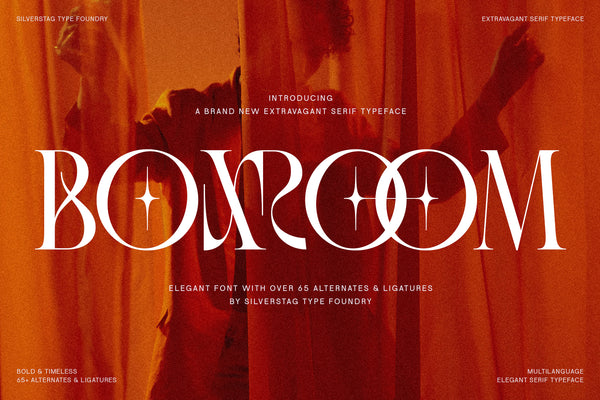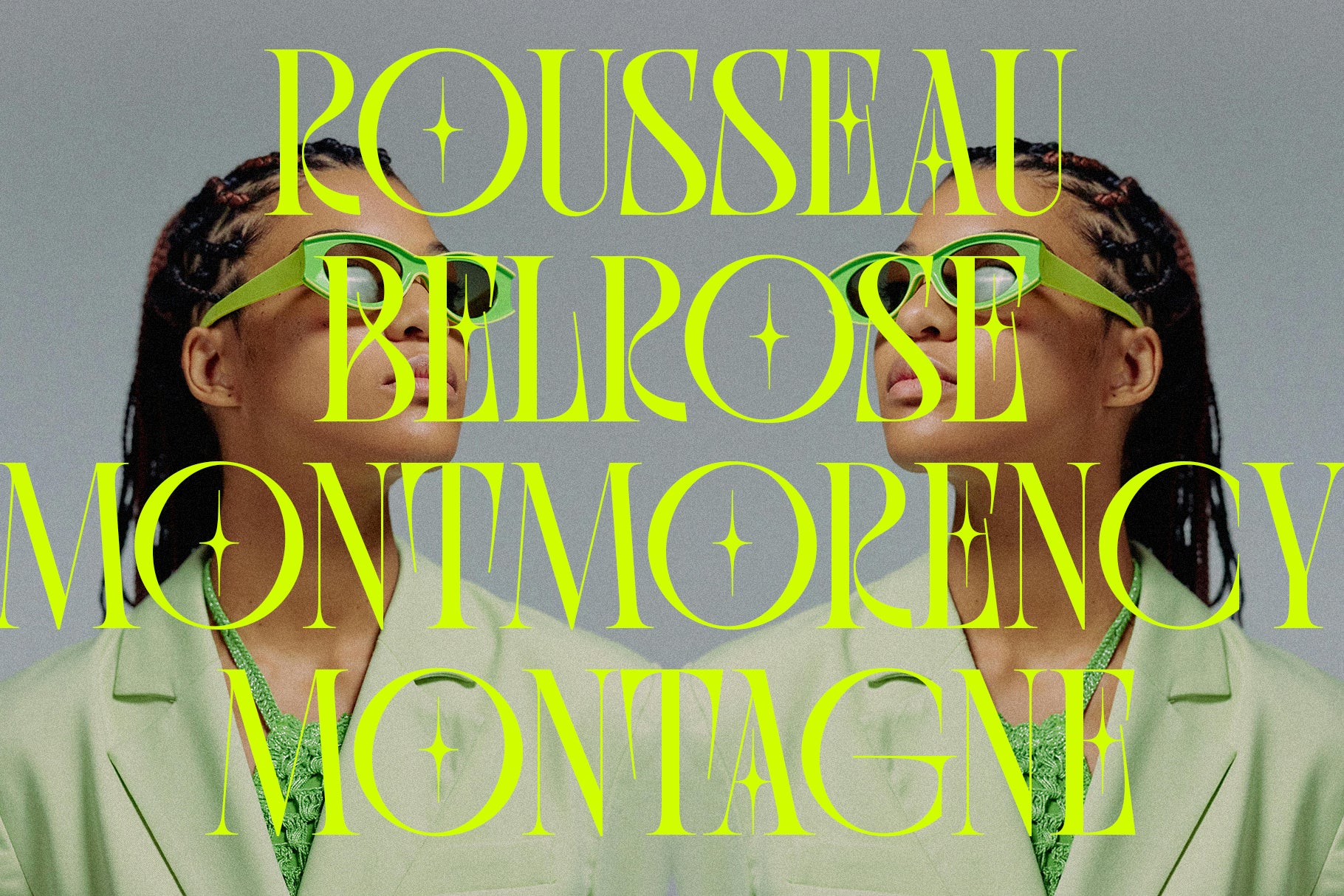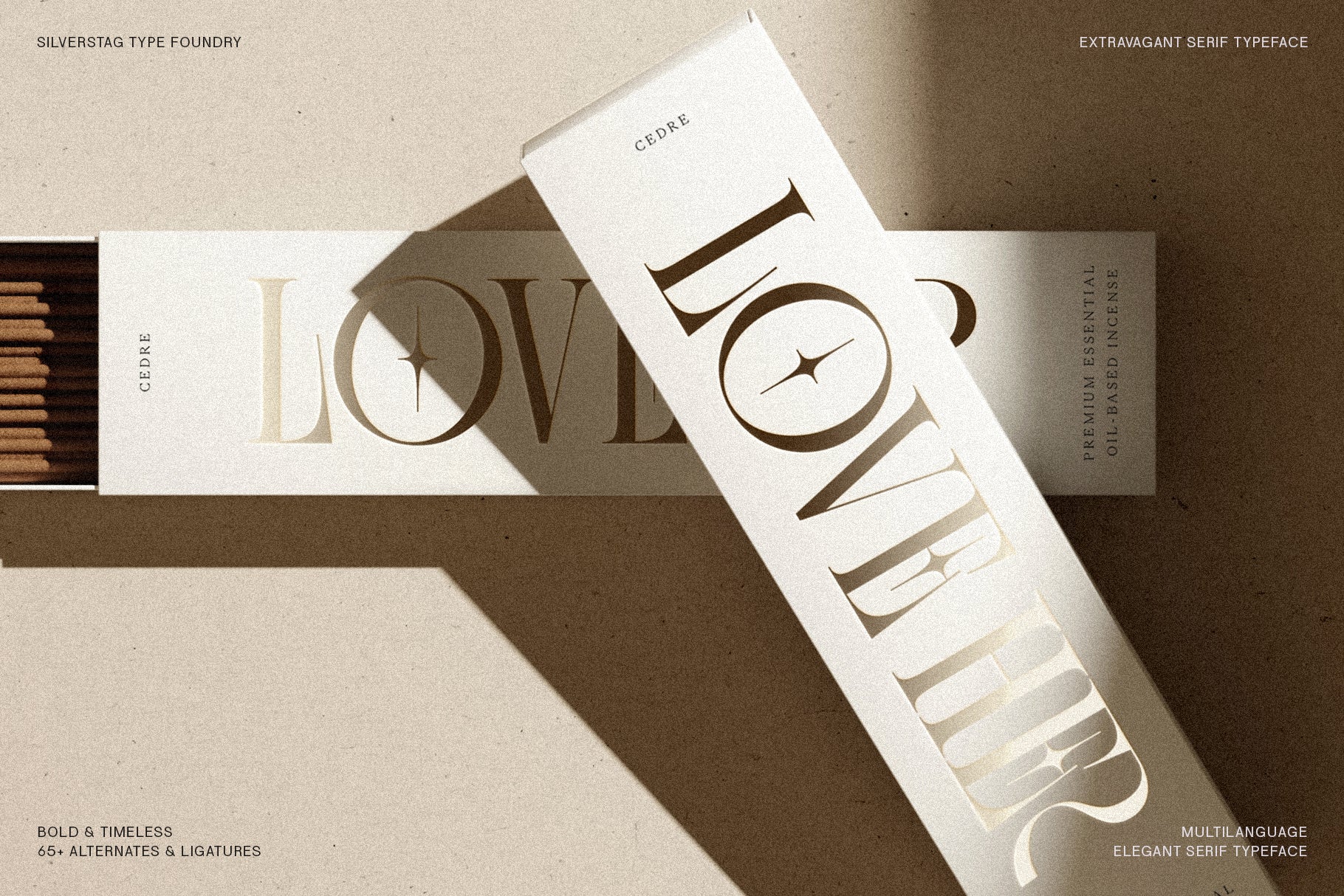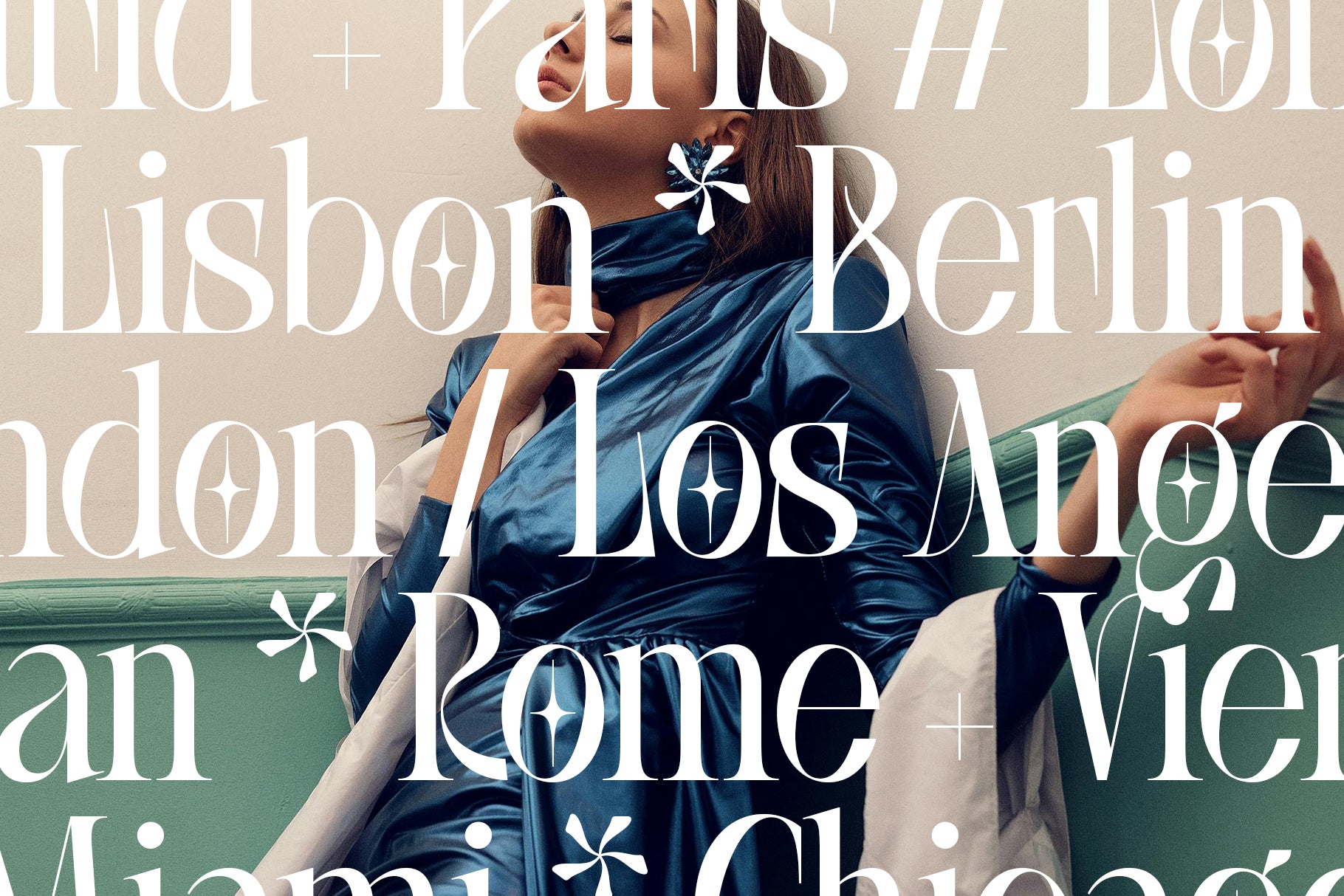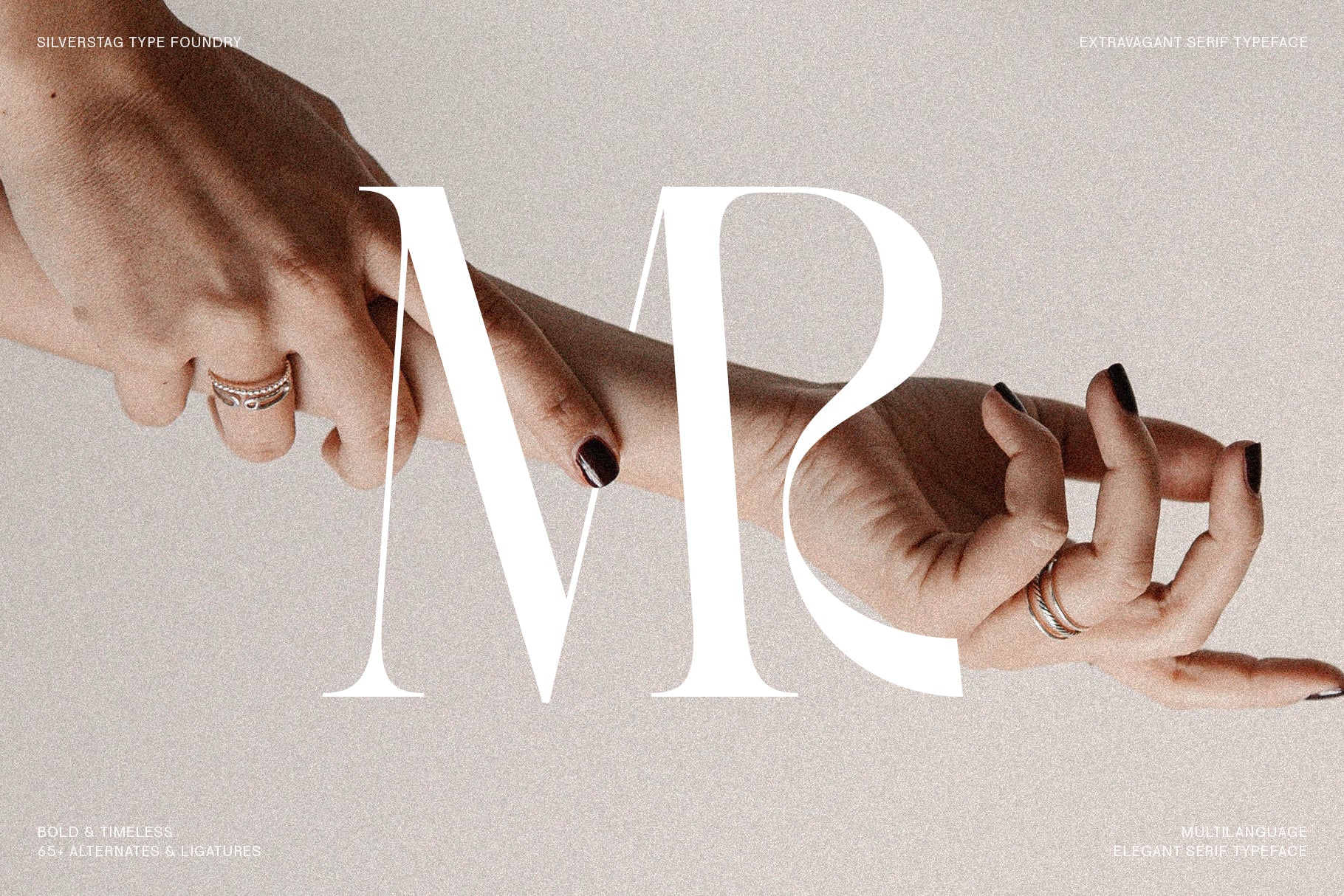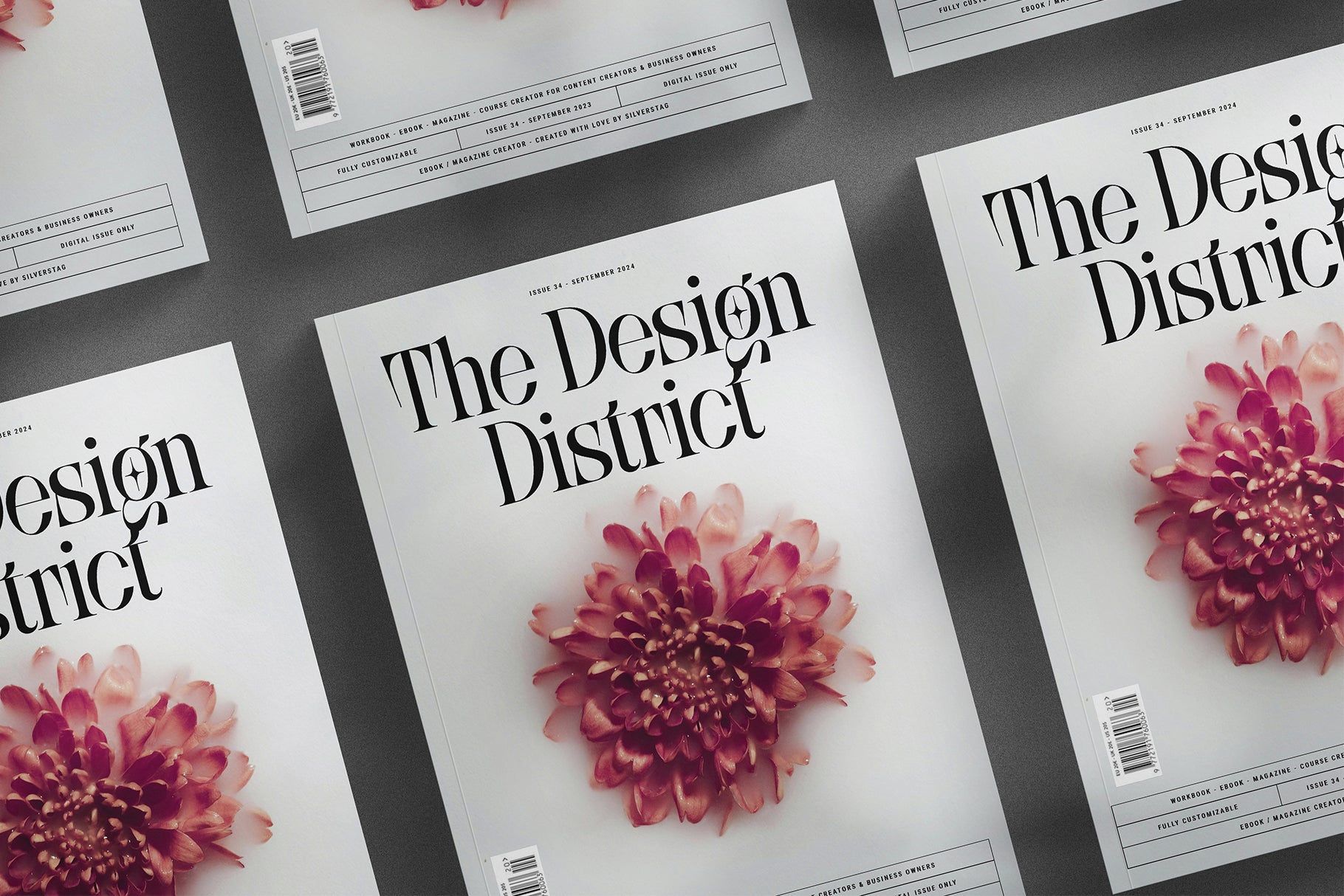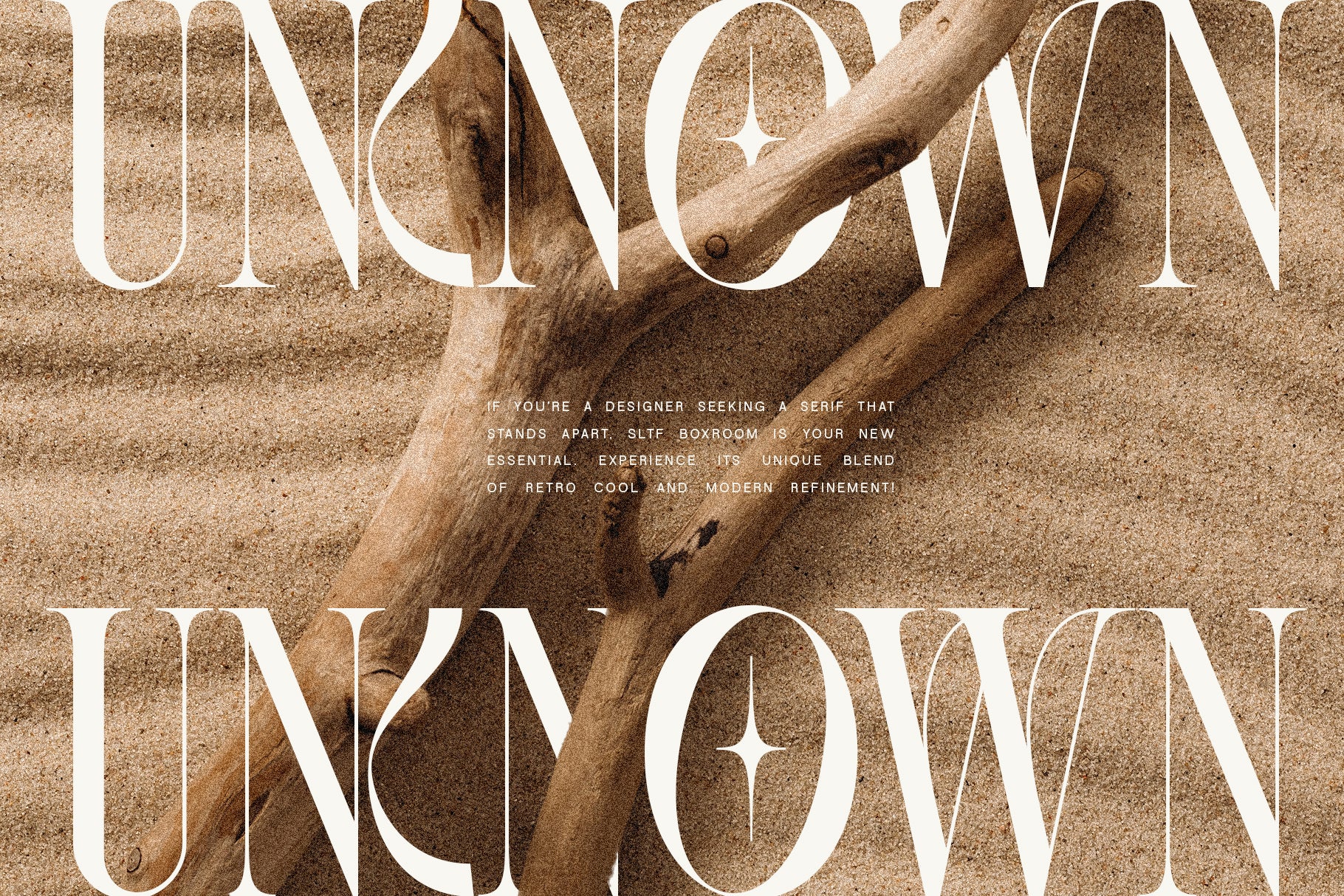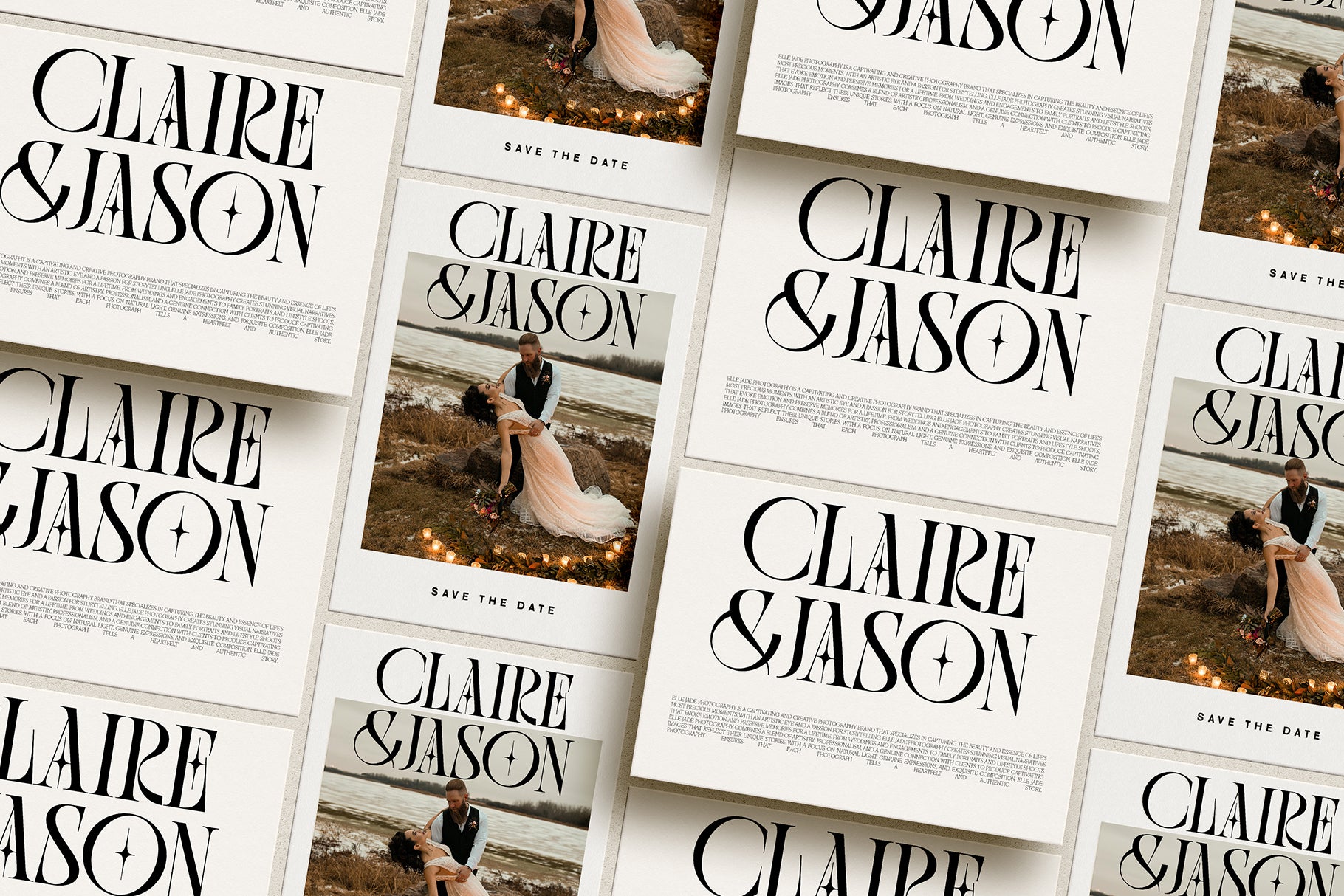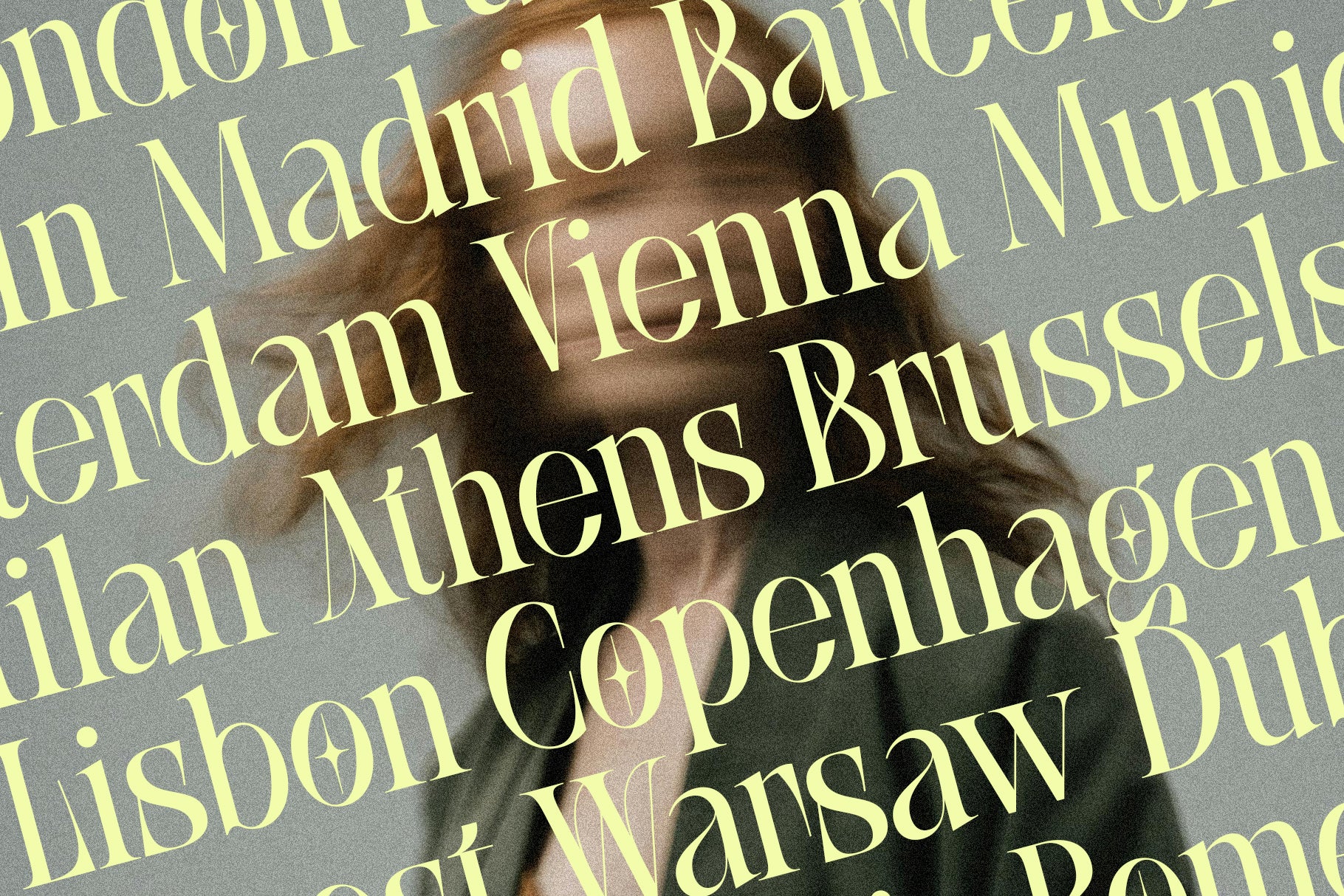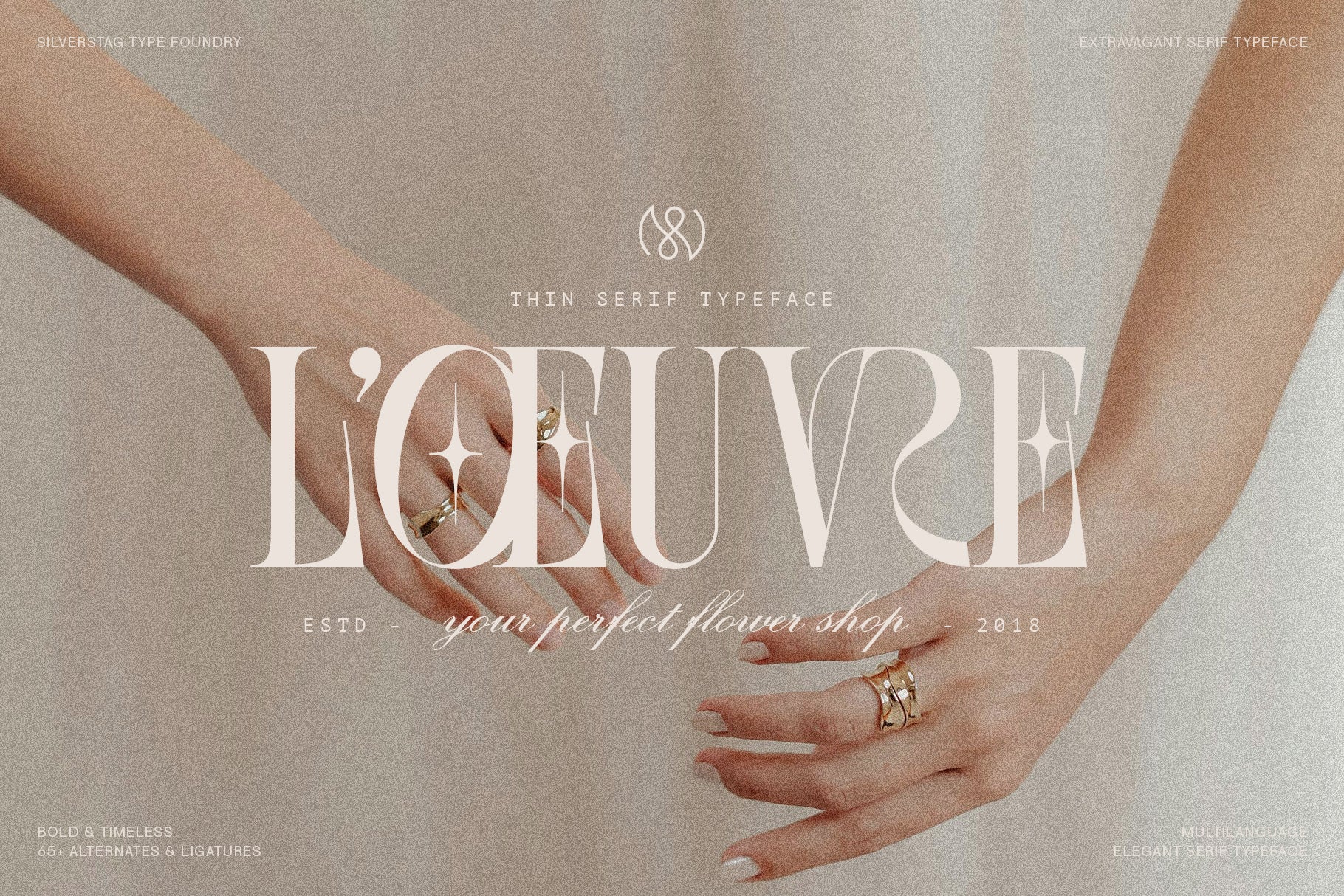
SLTF BOXROOM - Modern Serif Typeface
SLTF BOXROOM is a bold modern serif typeface that merges vintage elegance with expressive, contemporary character. Featuring sharp, extended serifs and unexpected decorative touches on letters like O, Q, E, and F, BOXROOM adds a dash of sophistication and surprise to every layout.
With 65+ carefully crafted ligatures and alternates, BOXROOM offers expressive flexibility for logos, editorial layouts, high-end packaging, and brand storytelling. It’s built for designers who crave a typeface that makes a statement—visually distinctive, versatile, and full of flair.
Supporting over 400 languages, BOXROOM is globally inclusive and ready for cross-cultural creative work. Its strong visual rhythm, editorial-friendly proportions, and detailed finishing make it ideal for branding, print, and digital design.
Boxroom name specimen Rousseau, Belrose, Montmorency and Montagne in yellow over a portrait
Boxroom city name specimen including Madrid and Paris over a blue puffer jacket
Boxroom The Design District posters with a pink dahlia
Boxroom Claire and Jason save the date wedding cards
Boxroom city name specimen including Madrid and Barcelona in yellow over a blurred portrait
Boxroom L'Oeuvre flower shop branding in cream over hands
Boxroom Reimagine posters featuring furniture
Boxroom word after in sage green on pale green
Boxroom word Cher in black on bright yellow green
Boxroom Love Her box of matches on tan with wheat
Boxroom Abraham Lincoln quote in white over dark rocks
Boxroom name specimen Amador, Atherton, Arcadia and Anderson in red on dark
Boxroom The New Collection fashion branding with a quilted bag
Boxroom Le Atelier branding over a woman seated in white
Boxroom Love Her branding on a white box on tan
Boxroom MR ligature in white over a hand wearing rings
Boxroom word unknown repeated in white over sand dunes
Boxroom ampersand ligature in yellow over dark blue flowers
Boxroom letterform tiles showing g and Aa glyphs in mustard and teal
Boxroom RR ligature in cream over a field of flowers
Boxroom name specimen Garnier, Toussaint, Laurent and Blanchet in yellow over a profile
Boxroom Canvas branding on a white box with a dried flower
Boxroom word calm repeated over a woman on a swing by water
Boxroom words lettering, contours and wrenches in yellow over a beach
Boxroom gi monogram in red with a dotted heart shape
Boxroom rhino dictionary definition in red with a large letterform behind